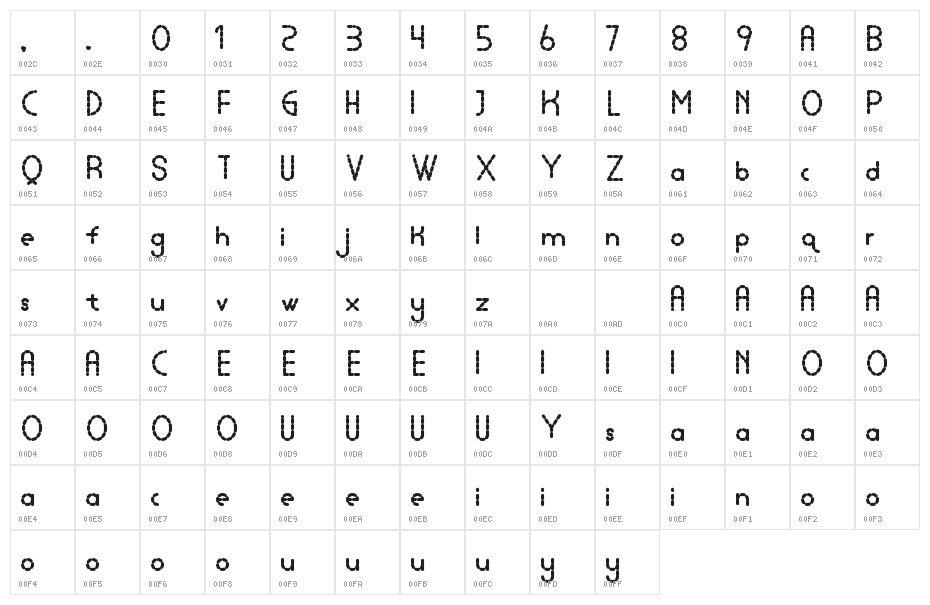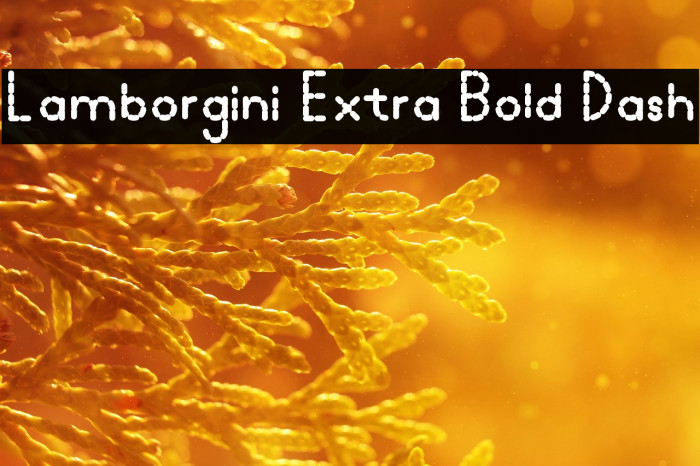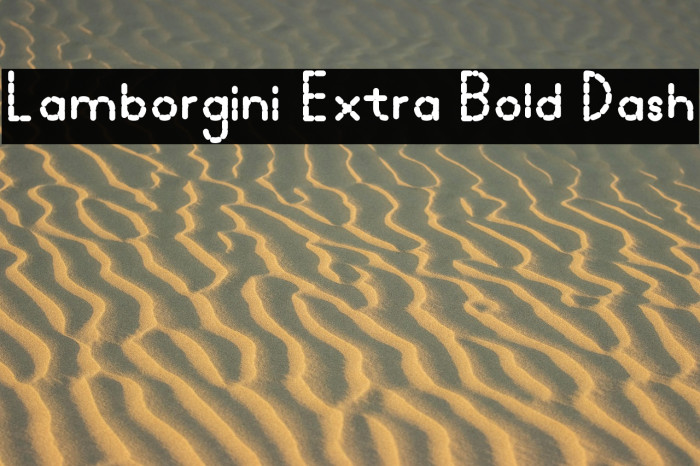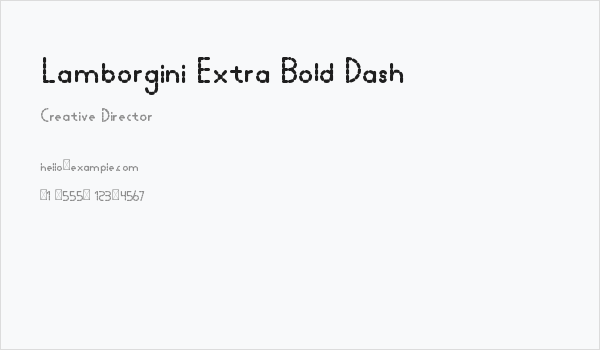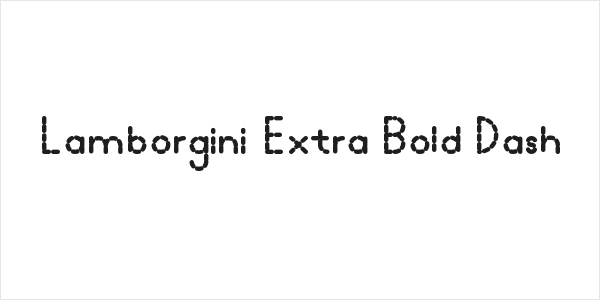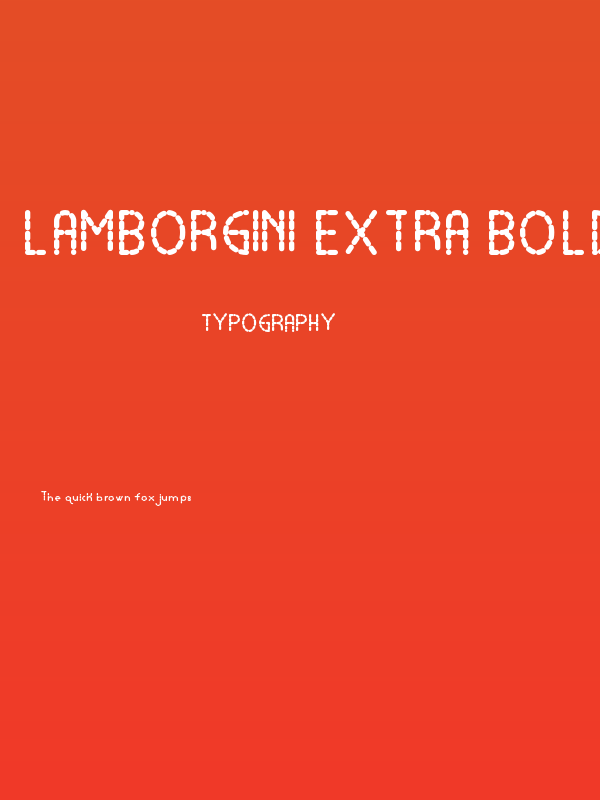
Lamborgini Extra Bold Dash Font
Lamborgini Extra Bold Dash Description
This font features a unique design where each character is composed of a series of dashes, creating a dotted appearance. The uppercase and lowercase letters maintain a consistent style, with rounded edges and uniform dash lengths. Numbers and special characters follow the same pattern, ensuring a cohesive look across all glyphs. The font's playful and modern aesthetic makes it stand out, while its boldness ensures readability. The spacing between characters is normal, allowing for clear legibility even at smaller sizes. This font is ideal for projects that require a distinctive and eye-catching typeface.
| Proposed Projects | Ideal for children's books, creative posters, and branding materials that require a fun and unique typeface. |